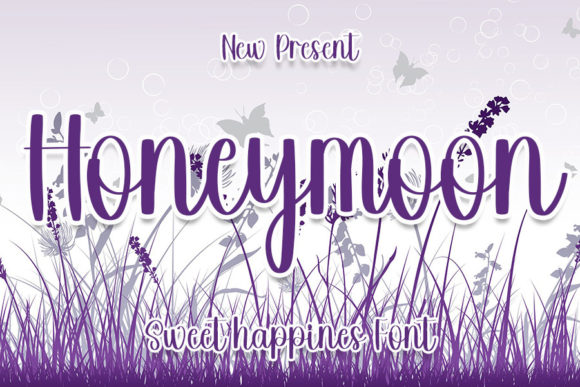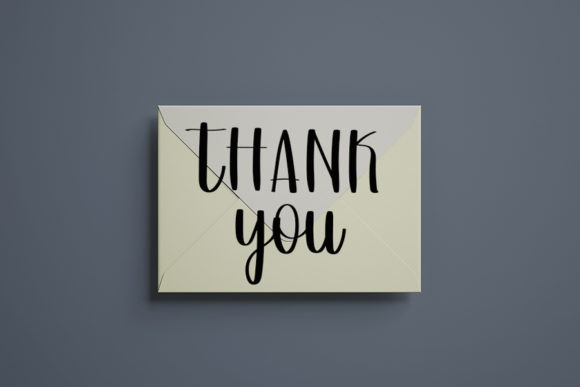
About Honeymoon Font
Honeymoon is a chic and refined script font that exudes sophistication and elegance. With its stylish alternates and ligatures, this font is the perfect match for any project, adding a touch of class and beauty.
The graceful and flowing characters of Honeymoon create a sense of elegance and refinement. Each letter is carefully designed with attention to detail, showcasing the beauty of the script font. The alternates and ligatures provide additional variations and decorative elements, allowing you to customize the look and feel of your designs.
Whether you’re working on wedding invitations, branding materials, logos, or any other creative project, Honeymoon adds a touch of sophistication. Its sleek curves and smooth lines bring a sense of luxury to your designs, elevating them to a higher level.
The versatility of Honeymoon allows it to adapt to various design styles and themes. It can effortlessly complement both formal and casual designs, making it suitable for a wide range of applications. From elegant and glamorous to modern and minimalist, Honeymoon enhances the overall aesthetic and creates a visually stunning result.
The stylish alternates and ligatures of Honeymoon offer creative opportunities for unique compositions. You can experiment with different letter combinations and decorative elements to create a personalized and custom look. This allows you to make your designs truly stand out and capture attention.
When you incorporate Honeymoon into your projects, you’ll notice how it adds a sense of sophistication and elegance. Its refined and chic nature brings a touch of luxury to your designs, making them visually appealing and memorable.
Whether you’re designing for special occasions, high-end brands, or any creative endeavor that requires an elegant touch, Honeymoon is the ideal choice. Its timeless beauty and versatility ensure that your designs make a lasting impression.
Embrace the sophistication and elegance of Honeymoon and let it elevate your creative projects to new heights. Experience the beauty and refinement of this chic script font as it adds a touch of class and elegance to your designs.